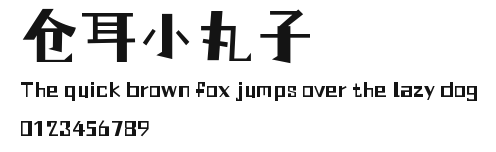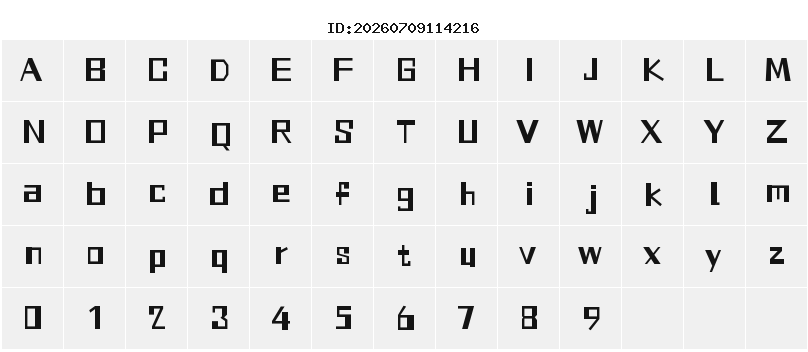
仓耳小丸子 Preview
• Font Name: 仓耳小丸子
• Full Font Name: 仓耳小丸子
• Designer: 北京仓耳文字技术有限公司
• Manufacturer: 北京仓耳文字技术有限公司
About 仓耳小丸子.ttf
仓耳小丸子.ttf is a modern, elegant sans-serif font designed for ultimate readability and visual harmony. Perfect for branding, headlines, web design, and print materials.